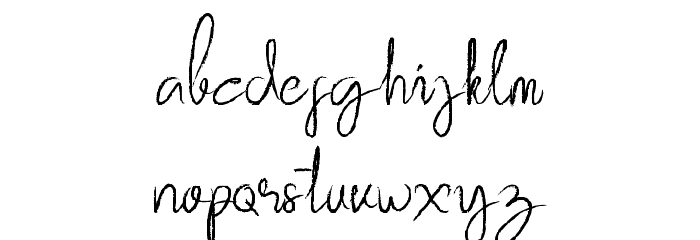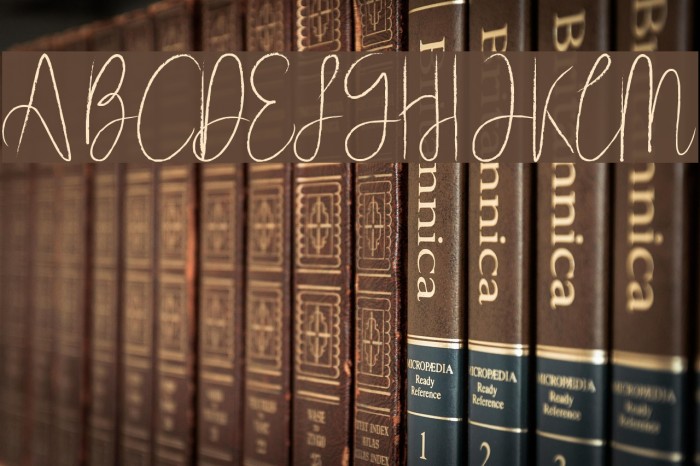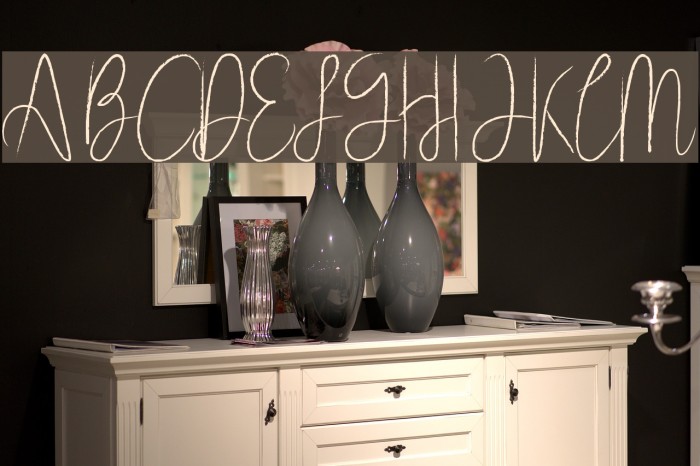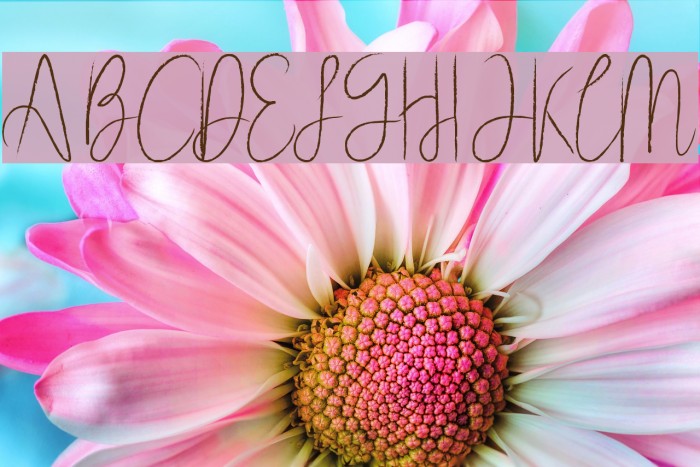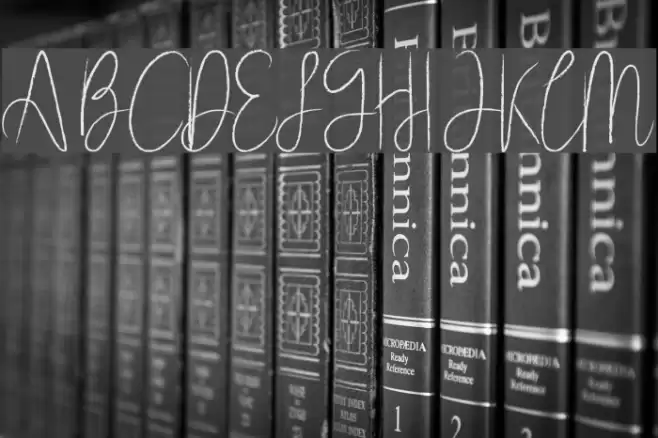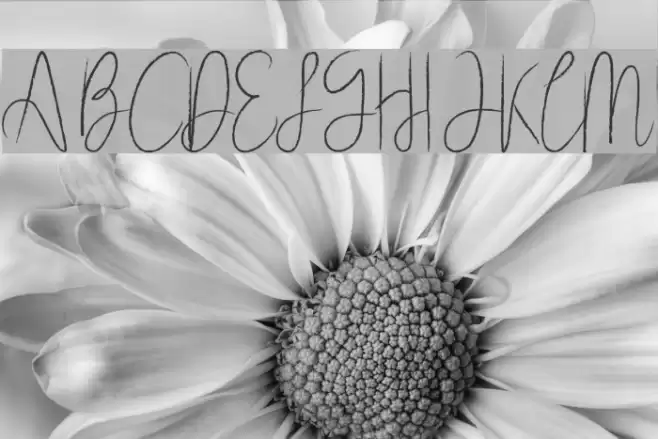
Subsky Font
This font features a unique and artistic handwritten style, characterized by its flowing and interconnected letterforms. The uppercase letters are tall and elegant, with a slight slant that adds a sense of movement and dynamism. The lowercase letters maintain a consistent style, with loops and curves that enhance the font's fluidity. The overall appearance is both playful and sophisticated, making it suitable for creative projects. The font's thin strokes and varying line thicknesses contribute to its delicate and airy feel, while the spacing between characters is balanced to ensure readability.
A flowing, artistic handwritten font with elegant, interconnected letterforms.
- Proposed Projects: Ideal for wedding invitations, greeting cards, branding, and artistic projects that require a personal touch.
- Overall Style: Artistic, Elegant
- Use Case: Logos, Invitations, Artistic projects